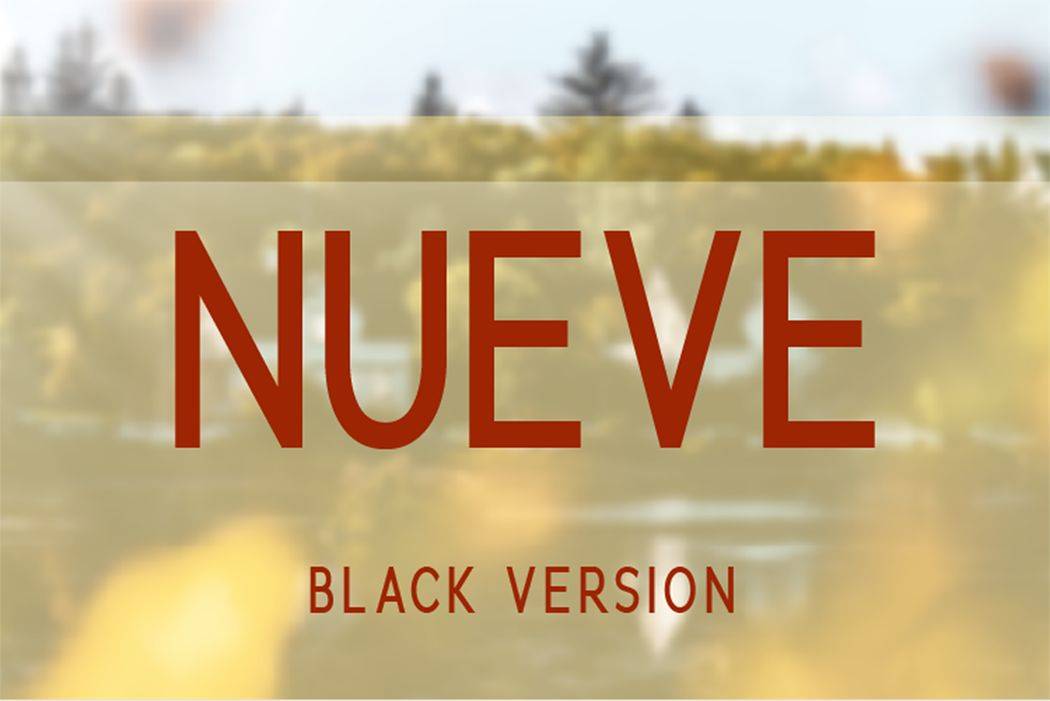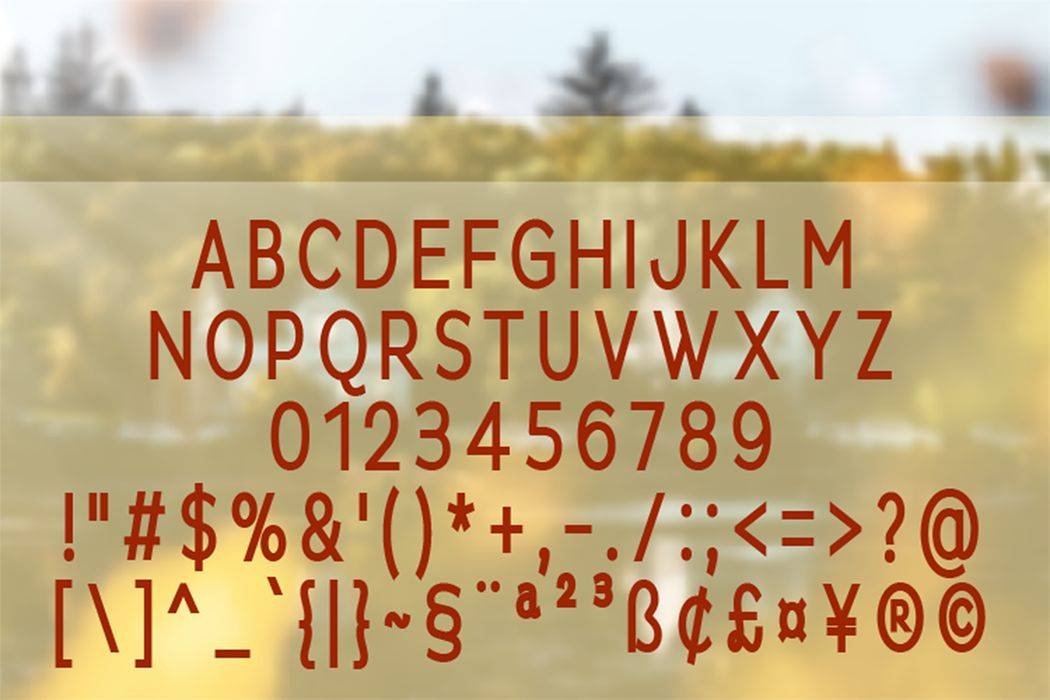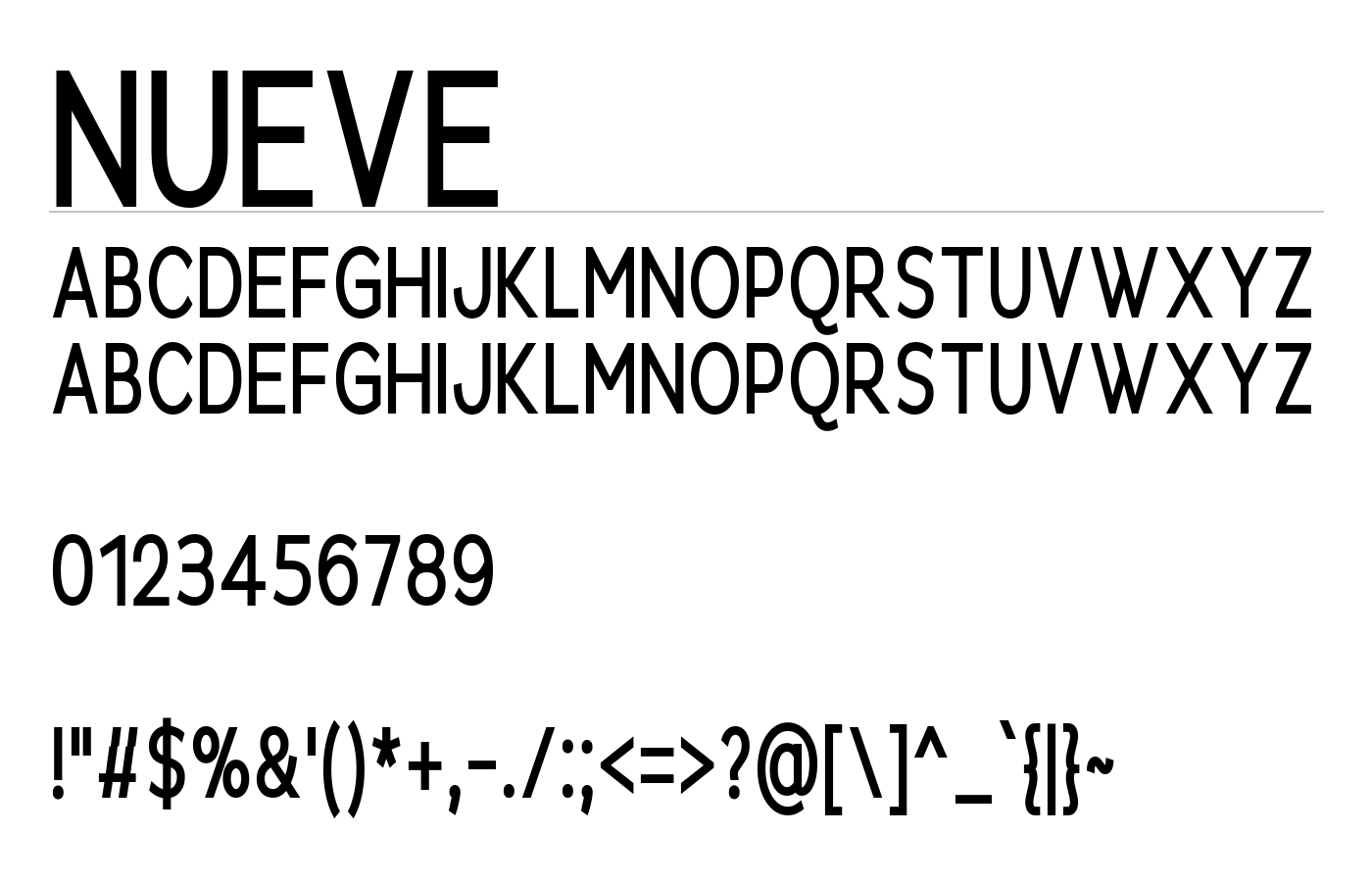
Nueve is a clean, condensed sans serif font characterized by its tall, narrow letterforms and uniform stroke weight. Its modern, geometric style with a straightforward, no-nonsense feel makes it ideal for impactful headlines, branding, and editorial projects where clarity and sophistication are essential. This font works well in designs aiming for a contemporary, professional look with a touch of elegance.
Nueve Font
About Nueve Font